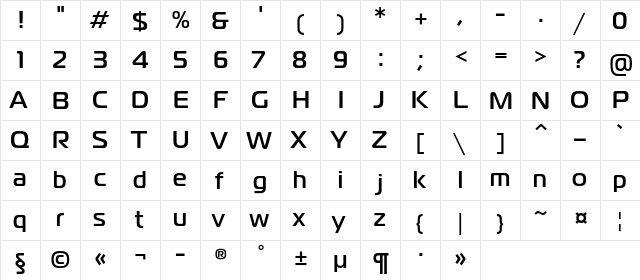
MagistralC Bold
Design Context for MagistralC Typeface
MagistralC offers clean, dependable letterforms without strong stylistic allegiance, making it a practical choice for designers who need flexibility. Its bold stroke weight gives it real presence on the page.